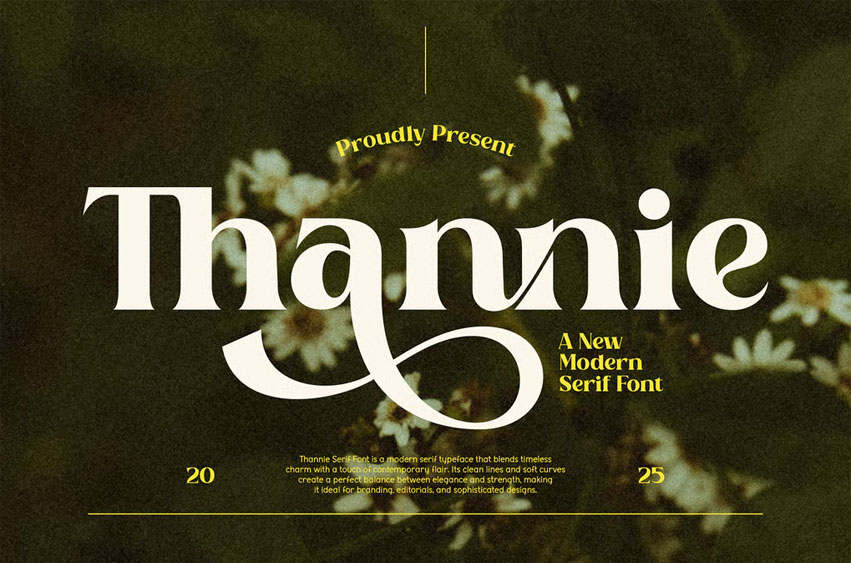
Thannie Font
Thannie Font is a Modern serif font that blends timeless charm with a touch of contemporary flair. Its clean lines and soft curves create a perfect balance between elegance and strength, making it ideal for branding, editorials, and sophisticated designs.
And especially for this font, we prepared all the characters to help you create unlimited variations for your creative needs.